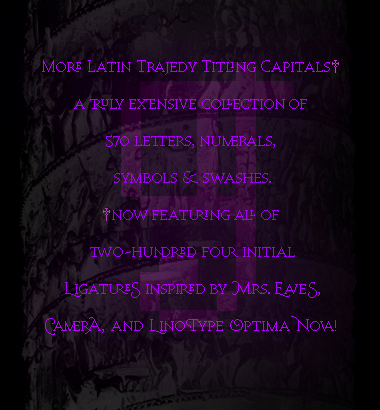
More Latin Trajedy Titling Capitals
More pxl love. And another expansion of Lex Kominek’s Trajedy majuscules.
The freshness of the original charmed me into creating an extended set of matching miniscules, diacritics, symbols and ligatures. But why stop there? :^)
Afrojet called for a proper small caps version after peeping my q, and knowing the mega-popular inspiration for all this, I just knew he was right. But would this grid really allow it? My inner type-pixeling neophyte couldn’t say!
So I dove in, trying my hand at what’s become the first of not one but two small caps variants. This first one, of course, is geared for titles and headlines. Certain capitals have been tweaked (Q, S, U), the numerals now match the small cap height, and all pertinent symbols have followed suit. Look close for the ornamental &, ¶, and †.
Even more akin to Trajan (_gulp_) but replete with a panoply of ligatures, I only threw the towel in after appending an anachronistic set of swash capitals.
More. Latin. Trajedy. :^)
Mrs Eaves
Camera
Optima Nova
p2pnut, aphoria: I don’t know what took longer...coming up with which ligatures I wanted to include, creating them (and ensuring that actual words can be made with them :P ), or trying to organize it all in some semblance of order within the Latin Extended B Unicode range!
Superb work on the small caps.
Ù missing letter, spacing after ¿ too large,